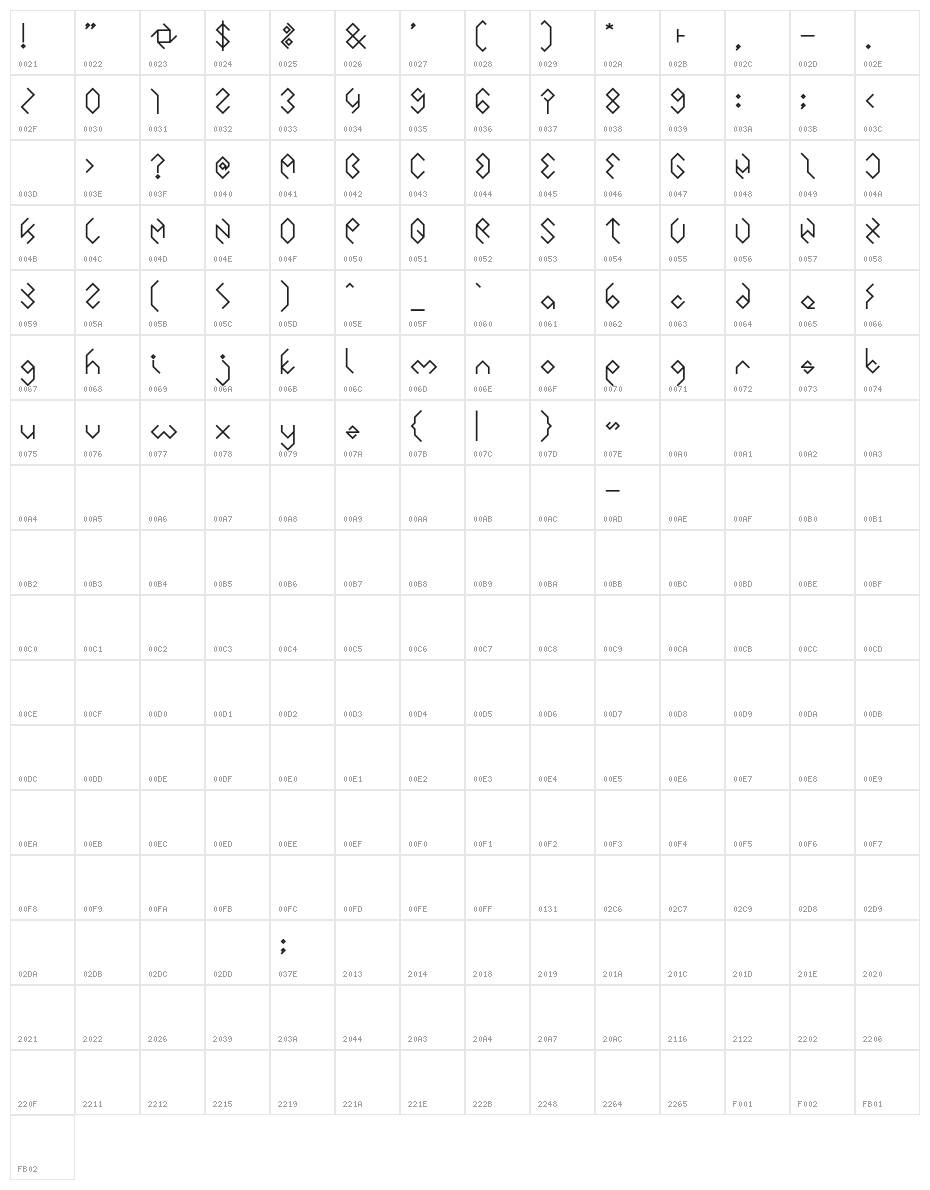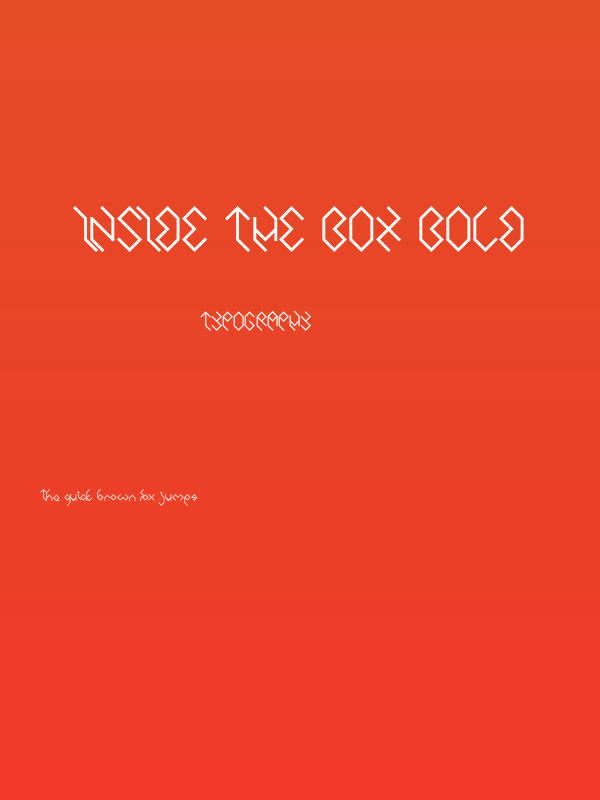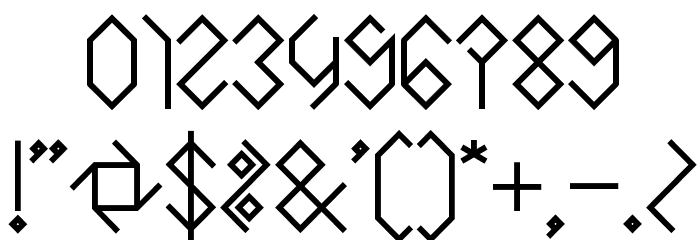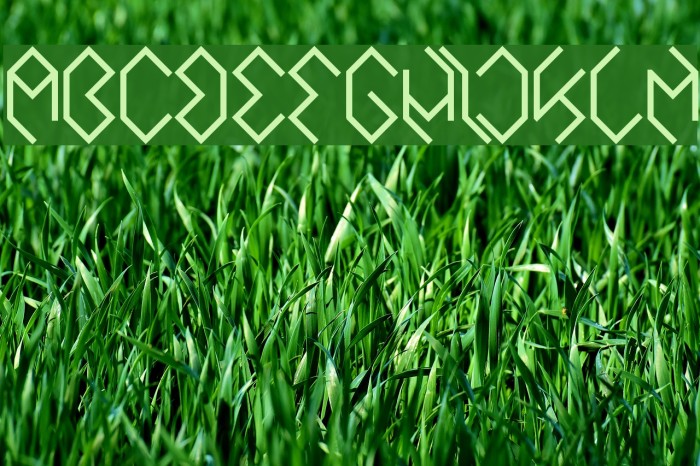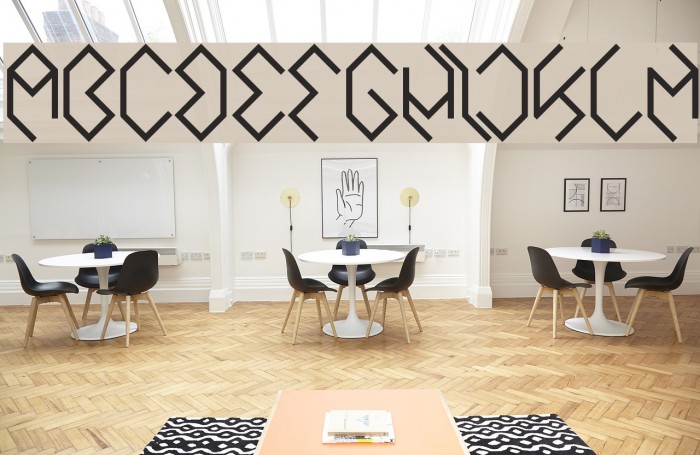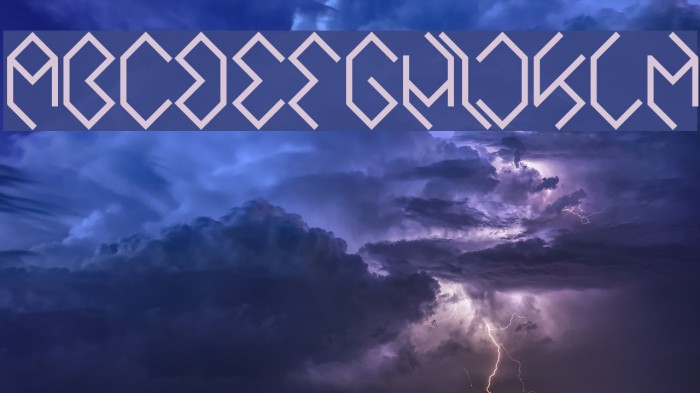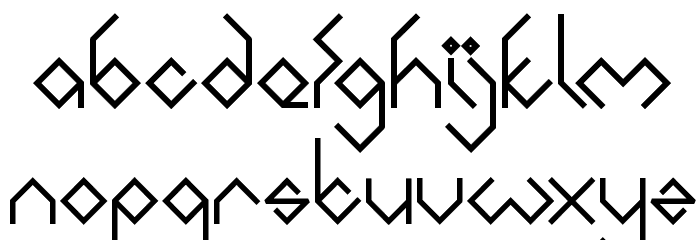
INSIDE THE BOX Bold Font
This font features a geometric and angular design, characterized by its sharp edges and linear forms. Each character is constructed with a series of straight lines and angles, creating a futuristic and mechanical appearance. The uppercase and lowercase letters maintain a consistent style, with a strong emphasis on symmetry and uniformity. Numbers and special characters follow the same design principles, ensuring a cohesive look across all elements. The font's unique structure makes it stand out, offering a bold and striking visual impact.
| Proposed Projects | Ideal for sci-fi themed projects, modern branding, tech-related designs, and video game titles. |